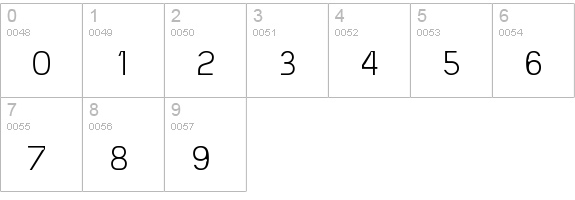
Eunuverse-Roman Font Details
Eunuverse-Roman font is a timeless and elegant typeface that exudes sophistication and charm. Its classic Roman style is perfect for adding a touch of refinement to any design project. With its clean lines and graceful curves, Eunuverse-Roman font is versatile and can be used for a wide range of applications, from branding to editorial design. The best part? Eunuverse-Roman font is completely free to download at FontsMarket.com. Whether you're a professional designer looking to enhance your projects or a hobbyist seeking to elevate your creations, this font is a must-have in your collection. Don't miss out on the opportunity to add this exquisite typeface to your toolkit and bring your designs to the next level with Eunuverse-Roman font.